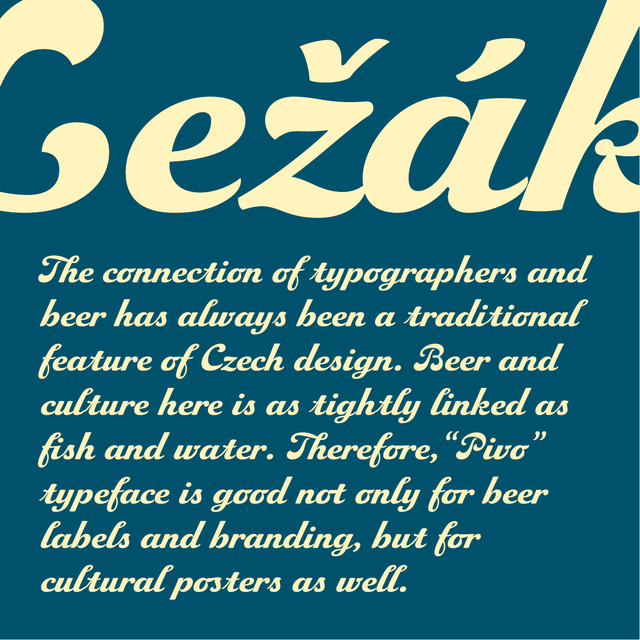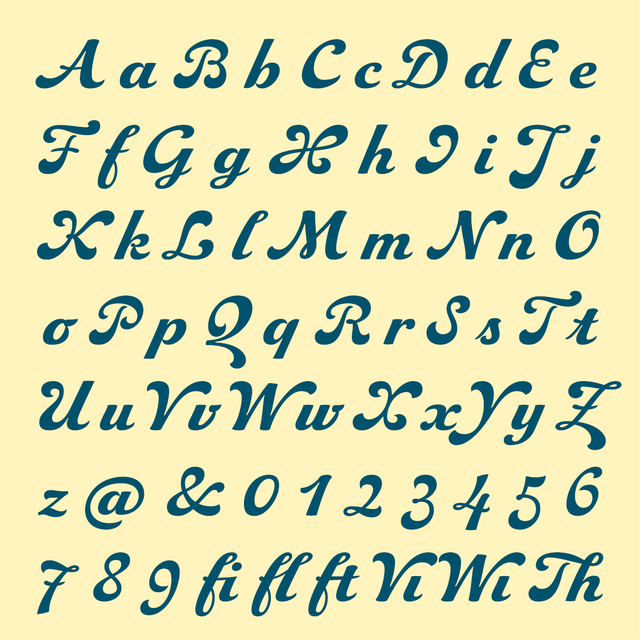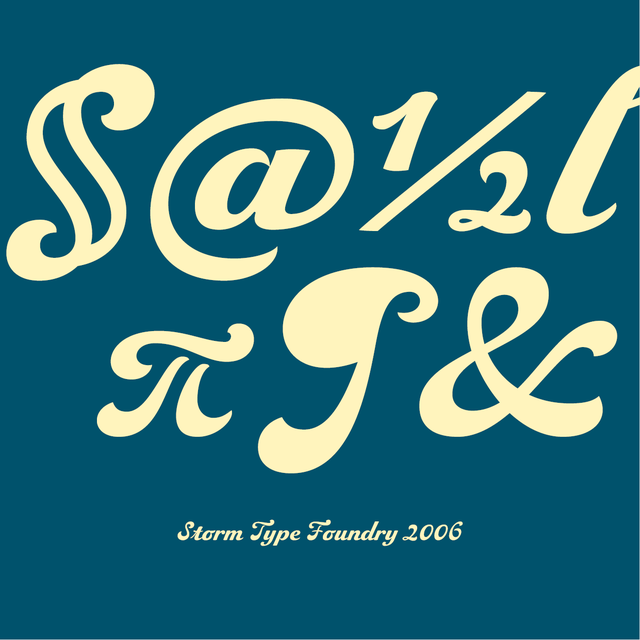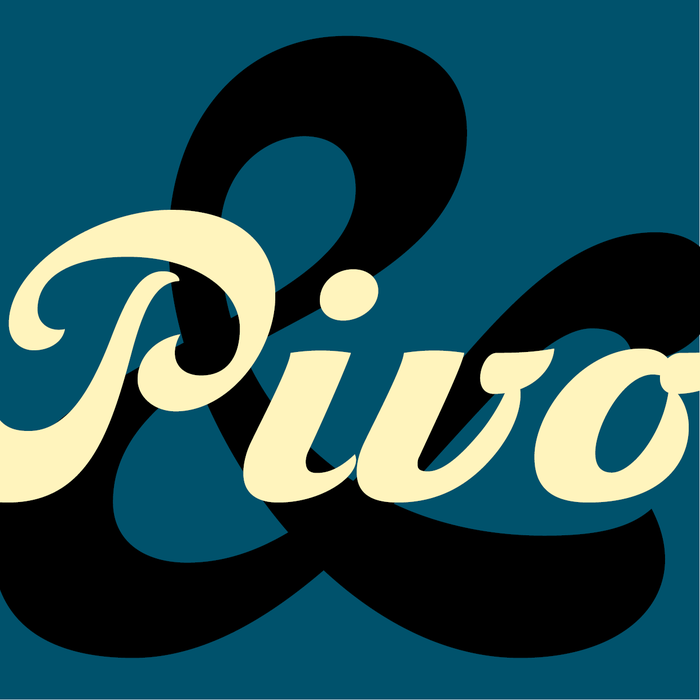
by František Štorm
The connection of typographers and beer has always been a traditional feature of Czech design. Beer and culture here is as tightly linked as fish and water. Therefore,“Pivo” typeface is good not only for beer labels and branding, but for cultural posters as well.